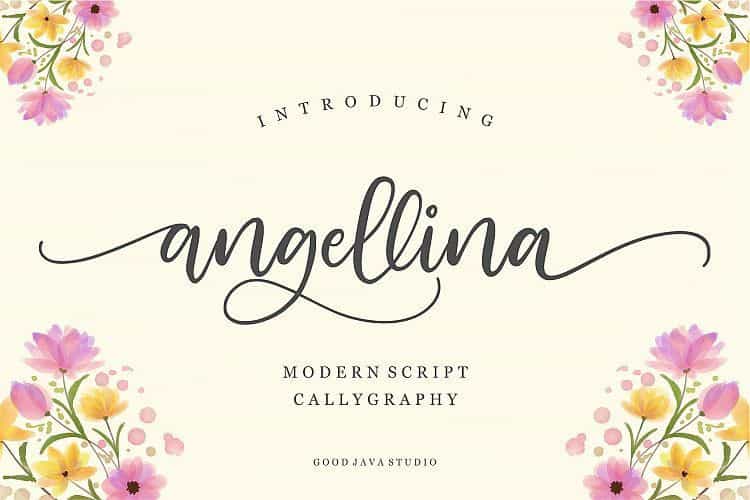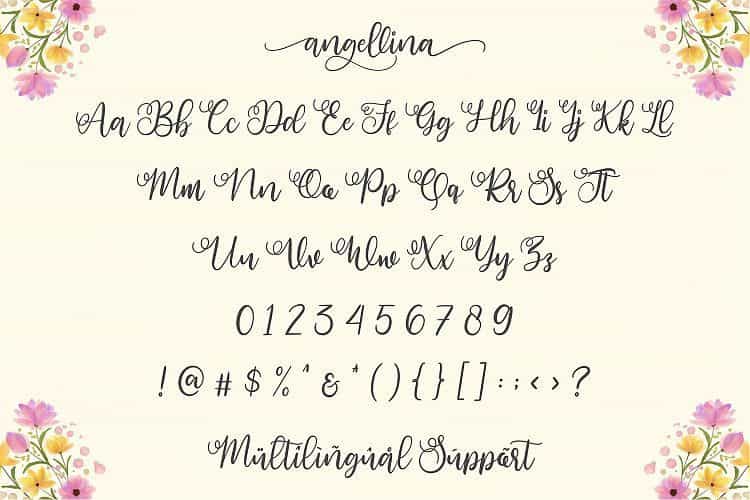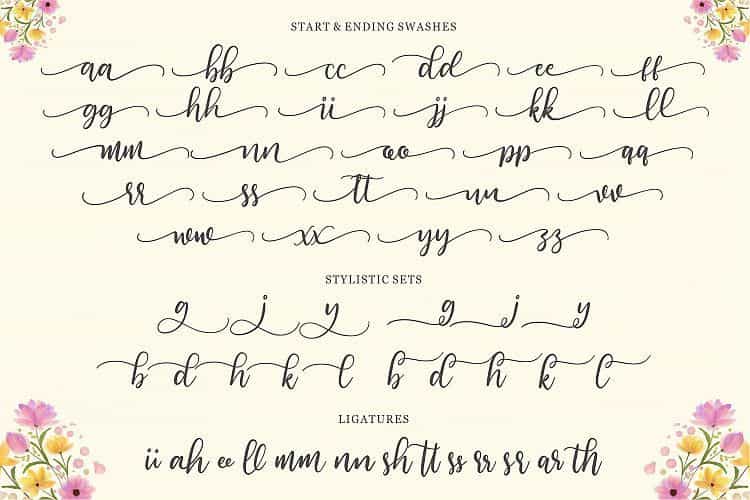
Introducing Angellina Font. Angellina Script Font a magnificent font is the best choice for modern and elegant handwriting. It is ideal for a logo, invitation, stationery, wedding designs, social media posts, advertisements product packaging design and label.